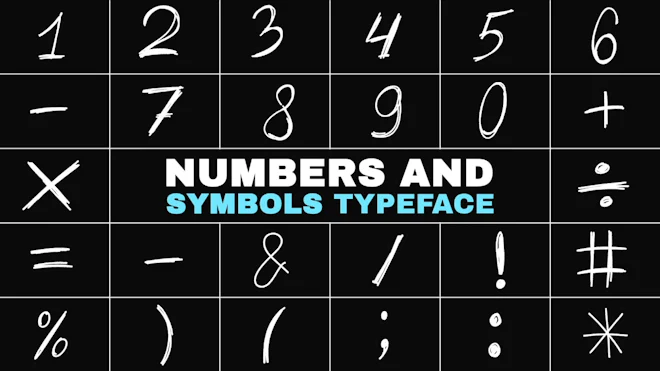
This After Effects template features a collection of drawn, scribble-style numbers, math symbols, and punctuation marks. You can customize the colors to suit your needs. You can use these effects to enhance your media. A video tutorial is included. Grab it today! Available in 4K.